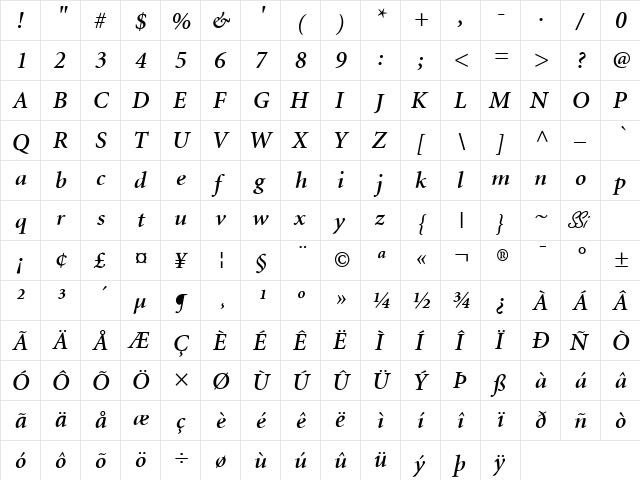
Atlantix SSi Semi Bold Italic
Design Context for Atlantix SSi Typeface
Atlantix SSi offers clean, dependable letterforms without strong stylistic allegiance, making it a practical choice for designers who need flexibility. The dynamic lean of this cut emphasises speed and emphasis in any layout. Its bold stroke weight gives it real presence on the page.
Pro Tip: Use Atlantix SSi for emphasis, pull quotes, and subheadings where its slanted energy can add rhythm to the layout.